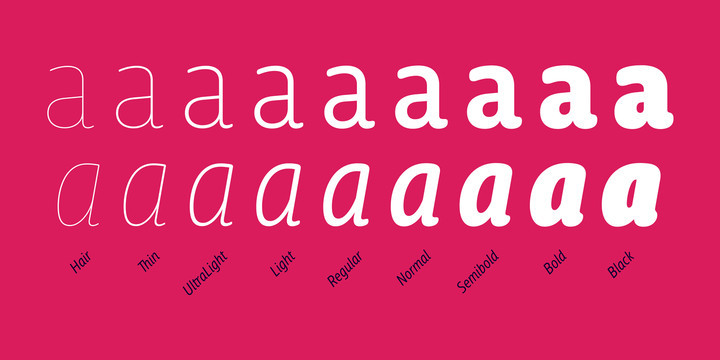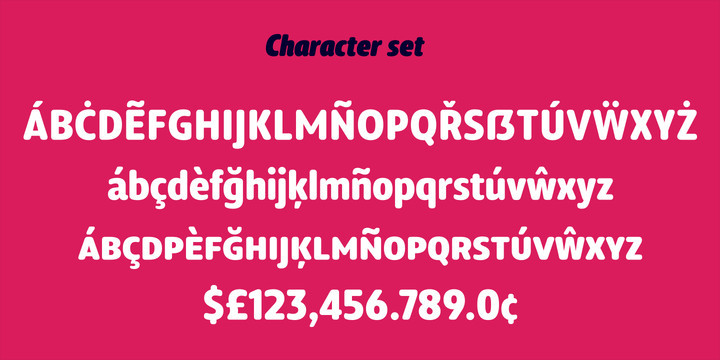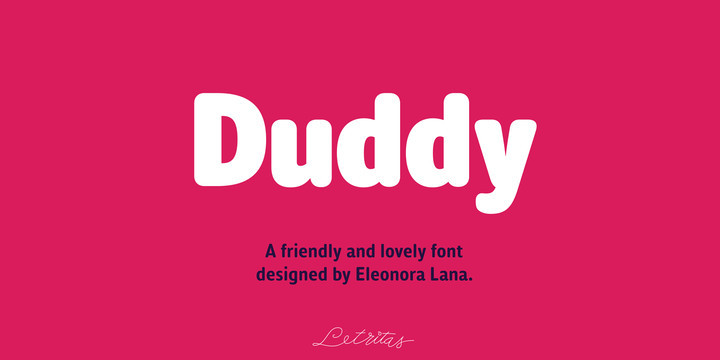
Duddy Font
Duddy FontDuddy is a “friendly” sans-serif typography designed by Eleonora Lana and the Letritas team. The shape of Duddy was created based on sketches that looked after carrying the concept of kindness as far as possible, keeping always in mind the readability and functionality of the font.The typeface has 9 weights, ranging from “thin” to “heavy”, and two versions: “regular” and “italic”. Its 18 files contain 729 characters with ligatures, alternates, small caps, oldstyle and tabular numbers, fractions, case sensitive, and unicase figures. It supports 219 Latin-based languages, spanning through 212 different countries.